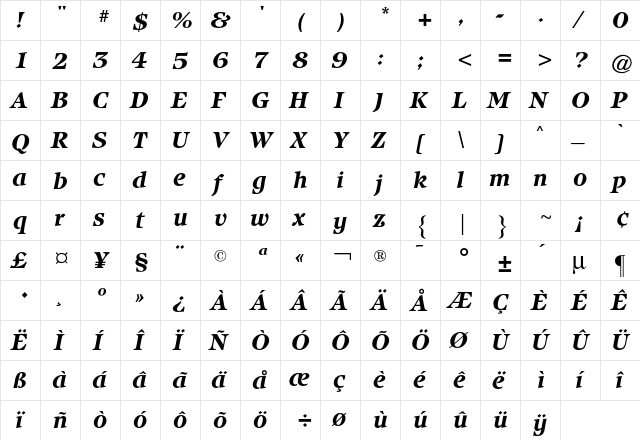
Isbell CG Bold Italic Font Preview
Isbell CG Bold Italic
Isbell CG Bold Italic Font Details
Design Context for Isbell CG Typeface
Isbell CG offers clean, dependable letterforms without strong stylistic allegiance, making it a practical choice for designers who need flexibility. The slanted form adds forward momentum and visual energy. The heavy weight commands attention and anchors typographic hierarchies.
Pro Tip: Try Isbell CG for annotation and caption copy alongside an upright companion — the contrast in angle creates a dynamic but ordered typographic system.